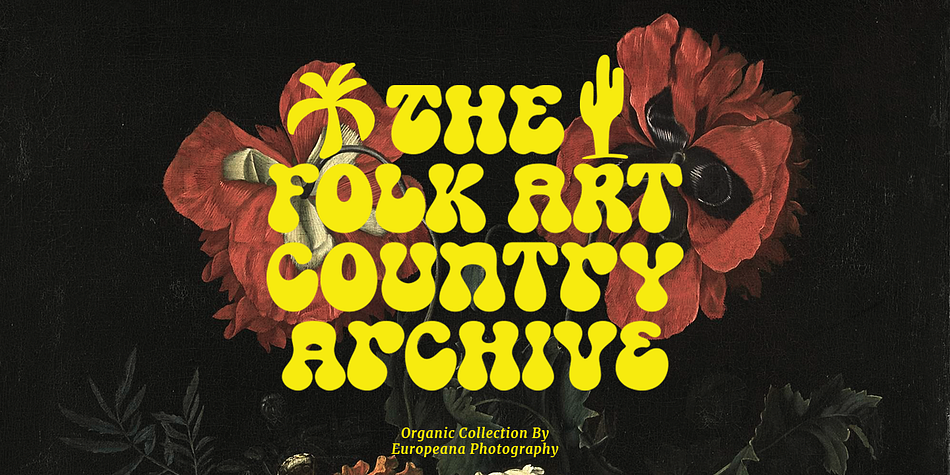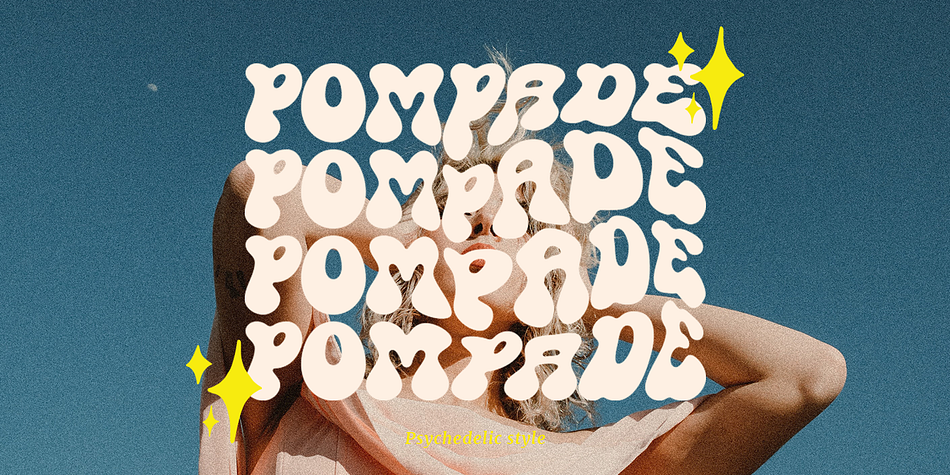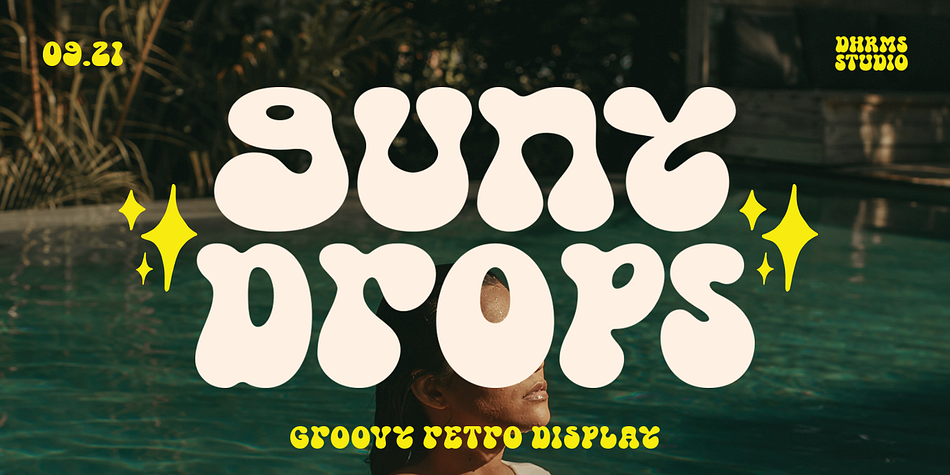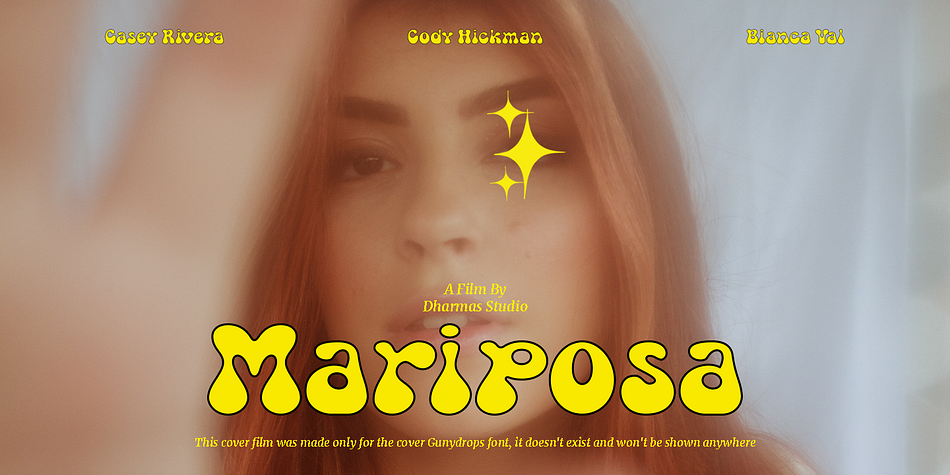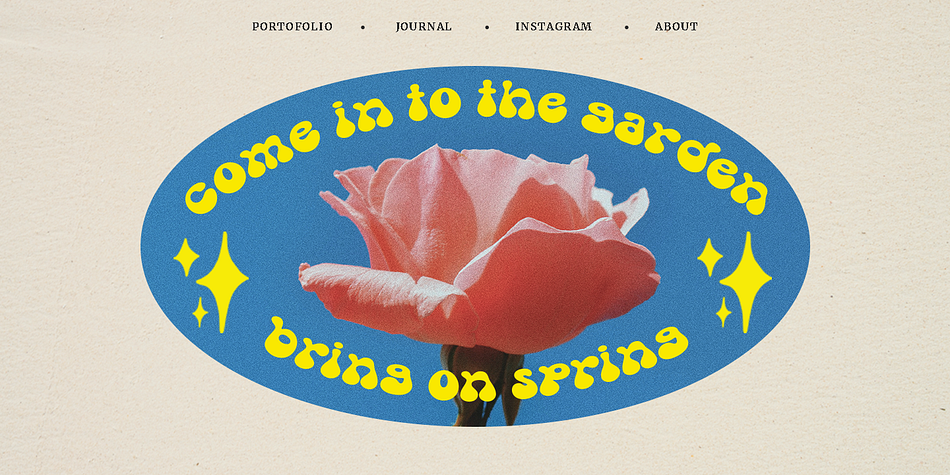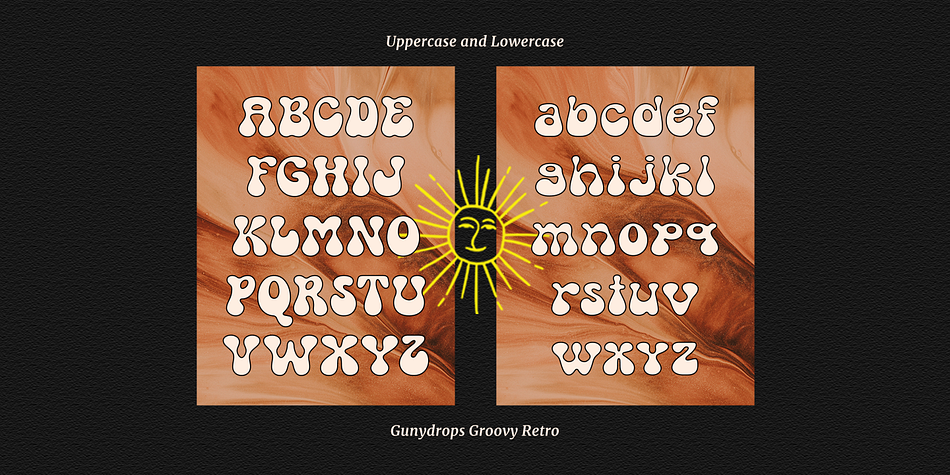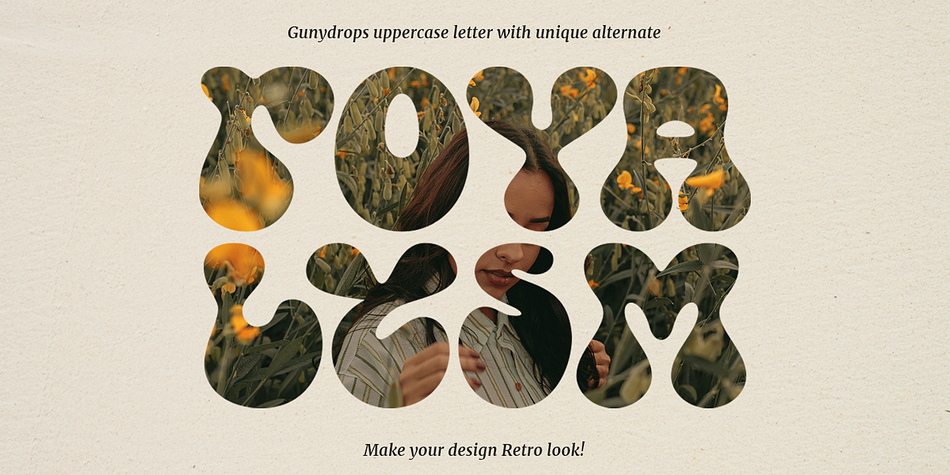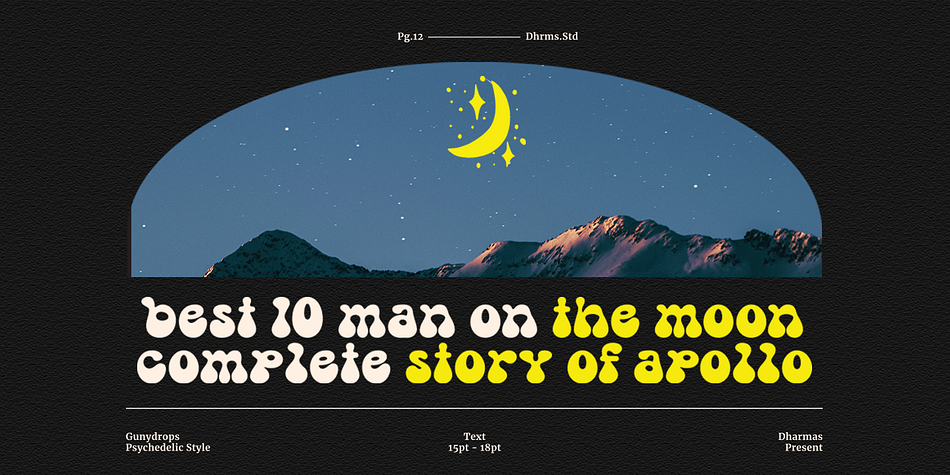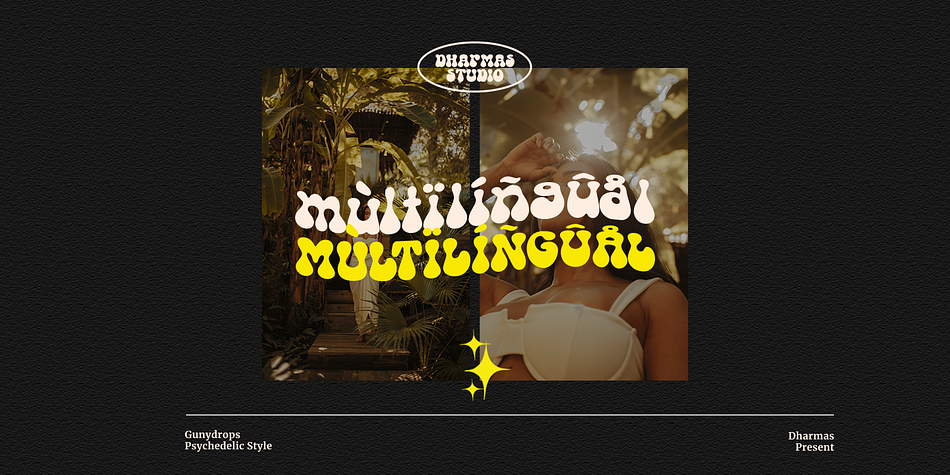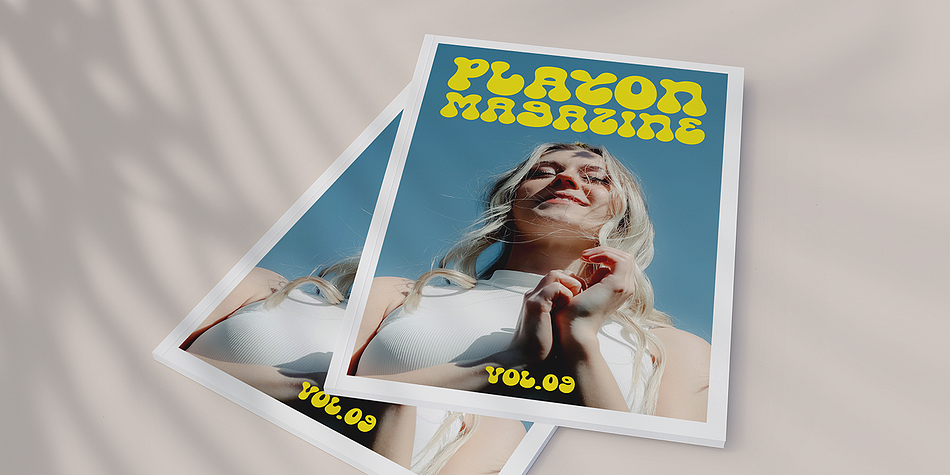
Gunydrops is a hand display and retro font family published by Dharmas Studio.
Gunydrops - it’s retro, bold, and playful, really ties together your piece to give it that retro feel. Perfect for make any project like header, quote, layout magazine and other. Even better if you use it on 60s and 70s design project
Embracing the psychedelia era combine with groovy style, it came with vector extras and open type features such as stylistic alternates
- Unique letterforms